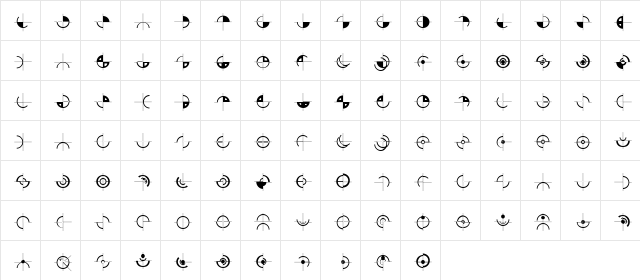
GeometricGlyphs Regular Font Preview
GeometricGlyphs Regular
Design Context for GeometricGlyphs Typeface
GeometricGlyphs is a composed and adaptable typeface that performs quietly and consistently across a wide range of design contexts.